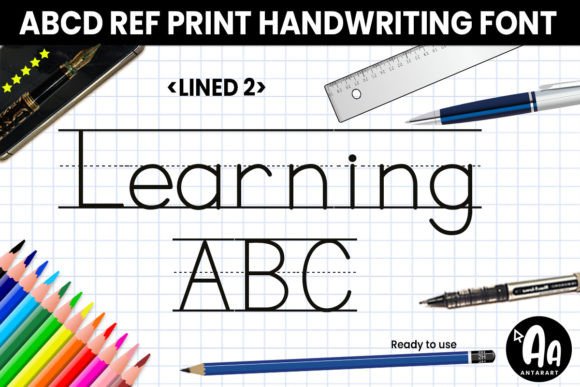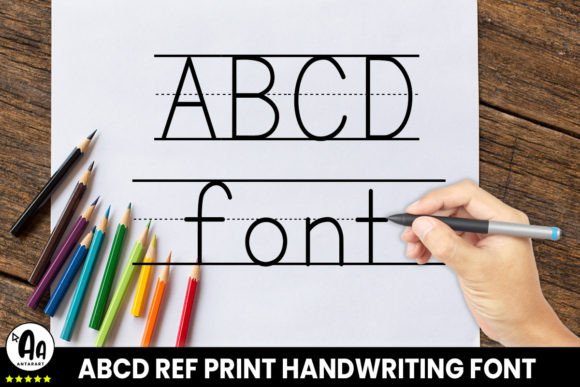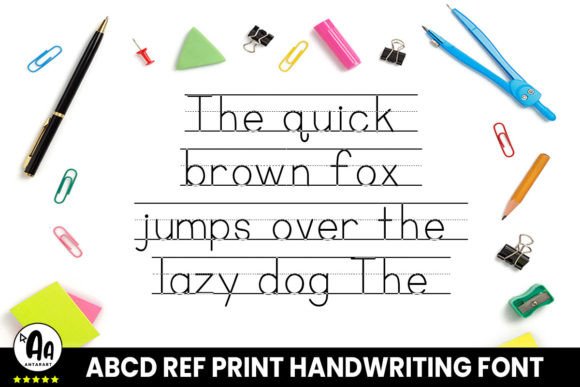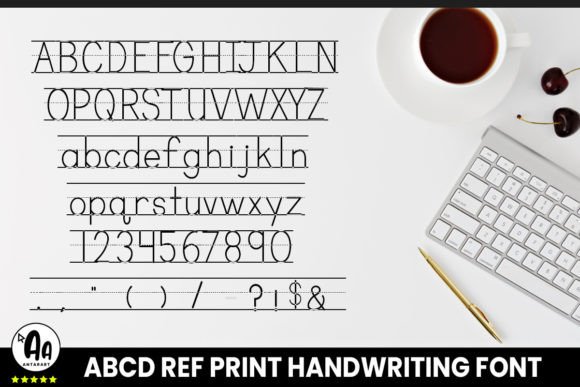
Abcd Ref Lined2 Font
About the Abcd Ref Lined2 Font
The wait is over! The incredible Abcd Ref Lined2 Font is now available for your design toolkit. ABCD Ref Lined2 (ABCD Ref font family)
This practical display font is based on the D’Nealian Method US school and helps you create thousands of worksheets. It is a great learning resource for those who want to learn or teach the print alphabet enjoyably and interactively.
ABCD Ref Lined2 excels as a display font for children’s educational materials, worksheets, and playful branding projects. Its clear, slightly rounded forms are highly legible at larger sizes, making it ideal for headlines, posters, and packaging targeting a younger audience. Avoid using it for body text or lengthy paragraphs; its design is not optimized for extended reading.
The font’s personality is friendly and approachable, yet structured and reliable. This makes it suitable for brands focused on education, childhood development, or playful products.
Pairing it with a clean sans-serif like Open Sans for body text or a playful script font like Pacifico for accents would create a balanced and visually appealing design system. For a more modern feel, consider pairing it with a geometric sans-serif such as Montserrat.
Abcd Ref Lined2 Font Usage Examples
Abcd Ref Lined2 Font Example